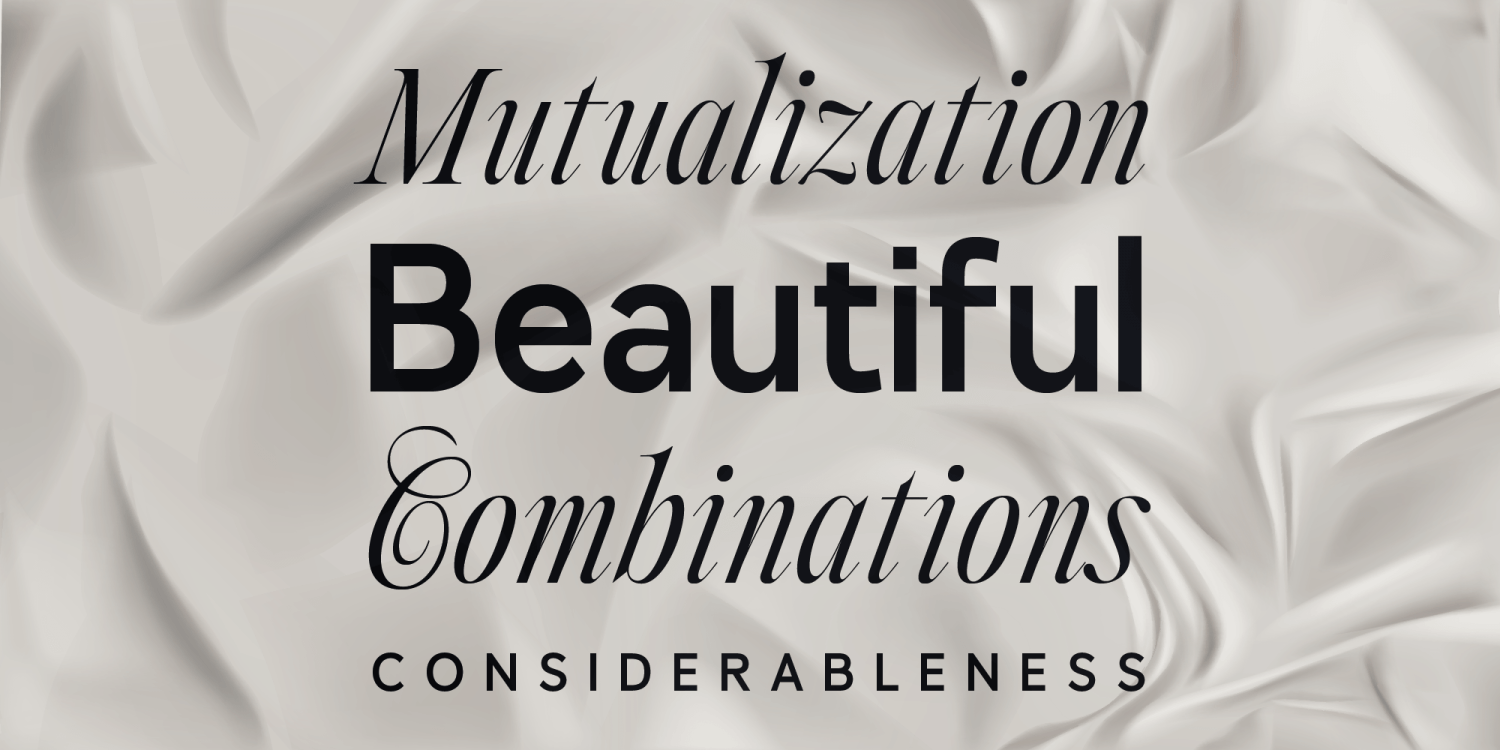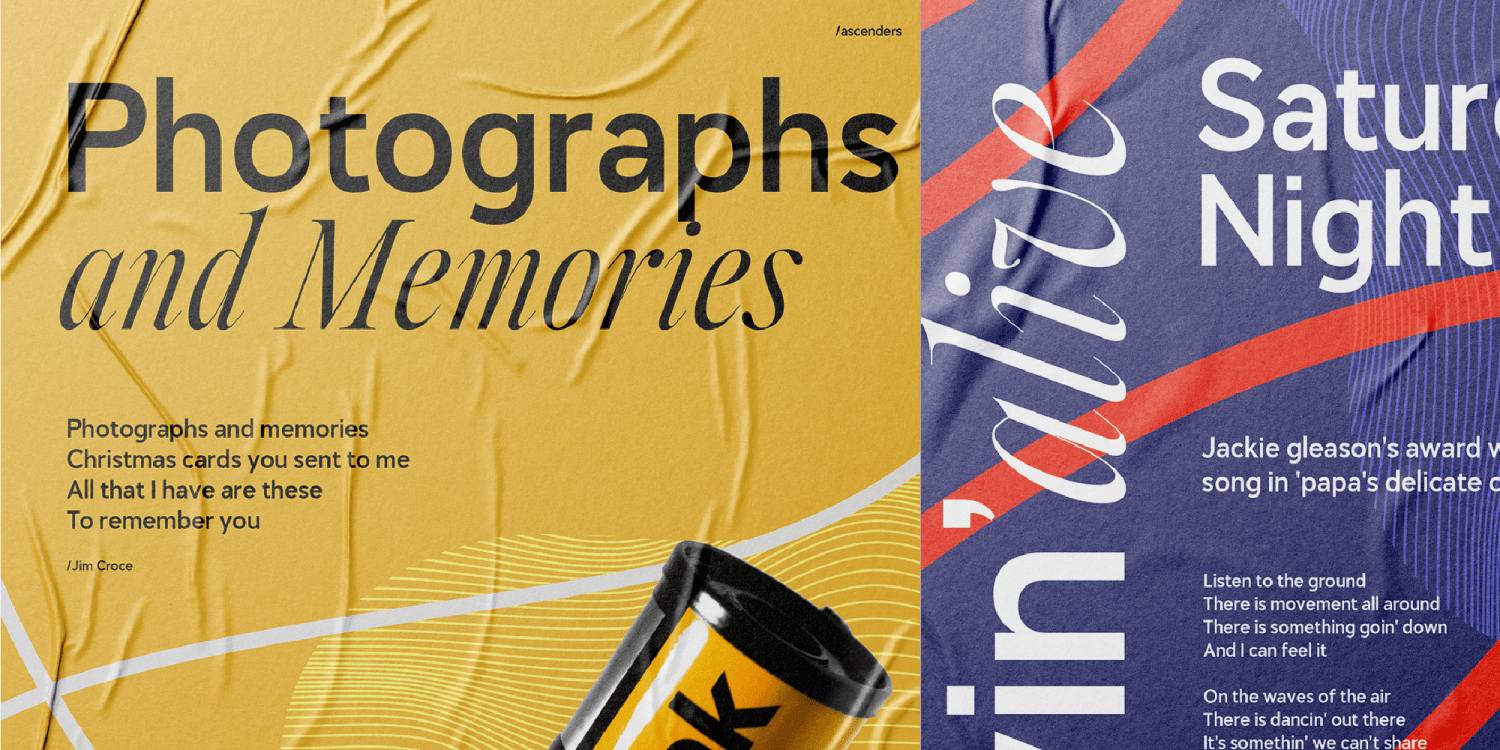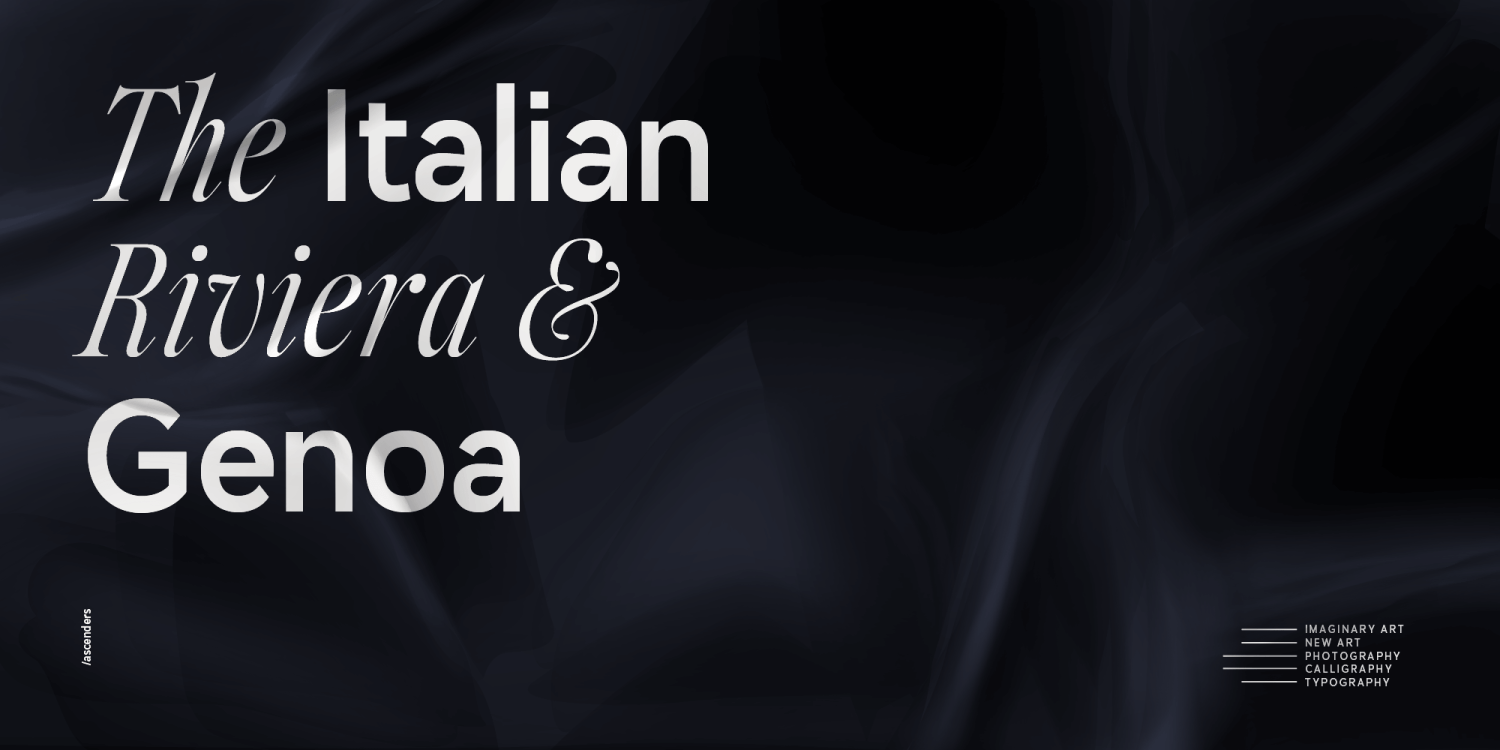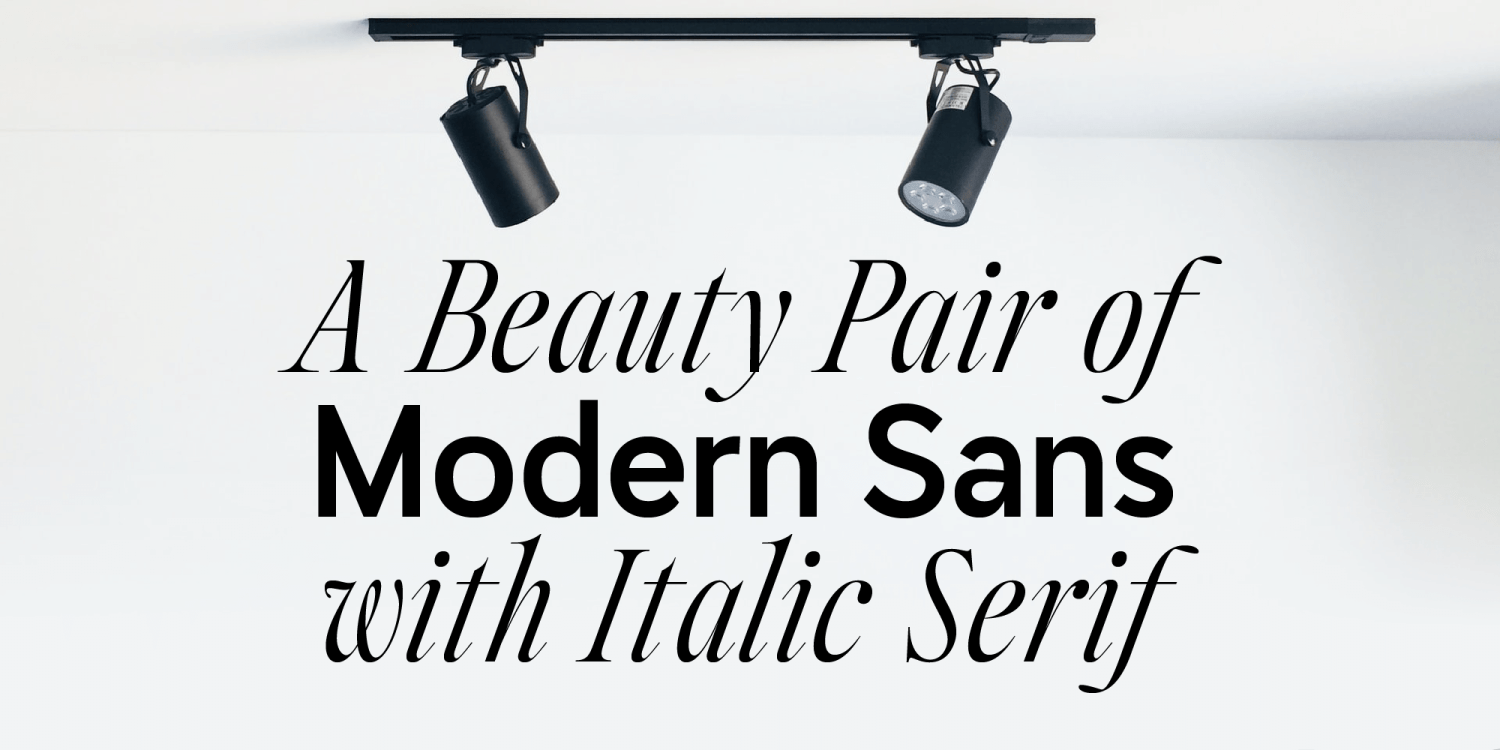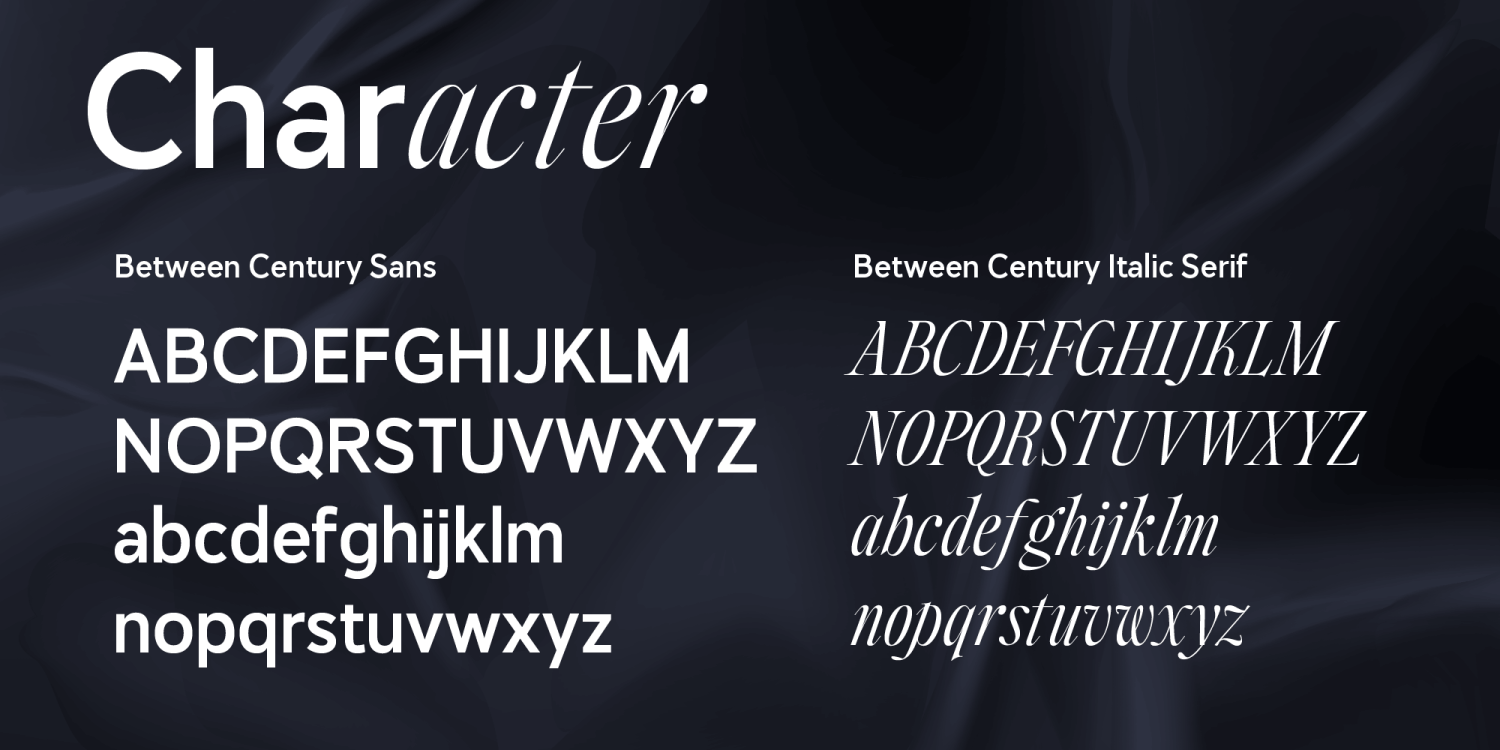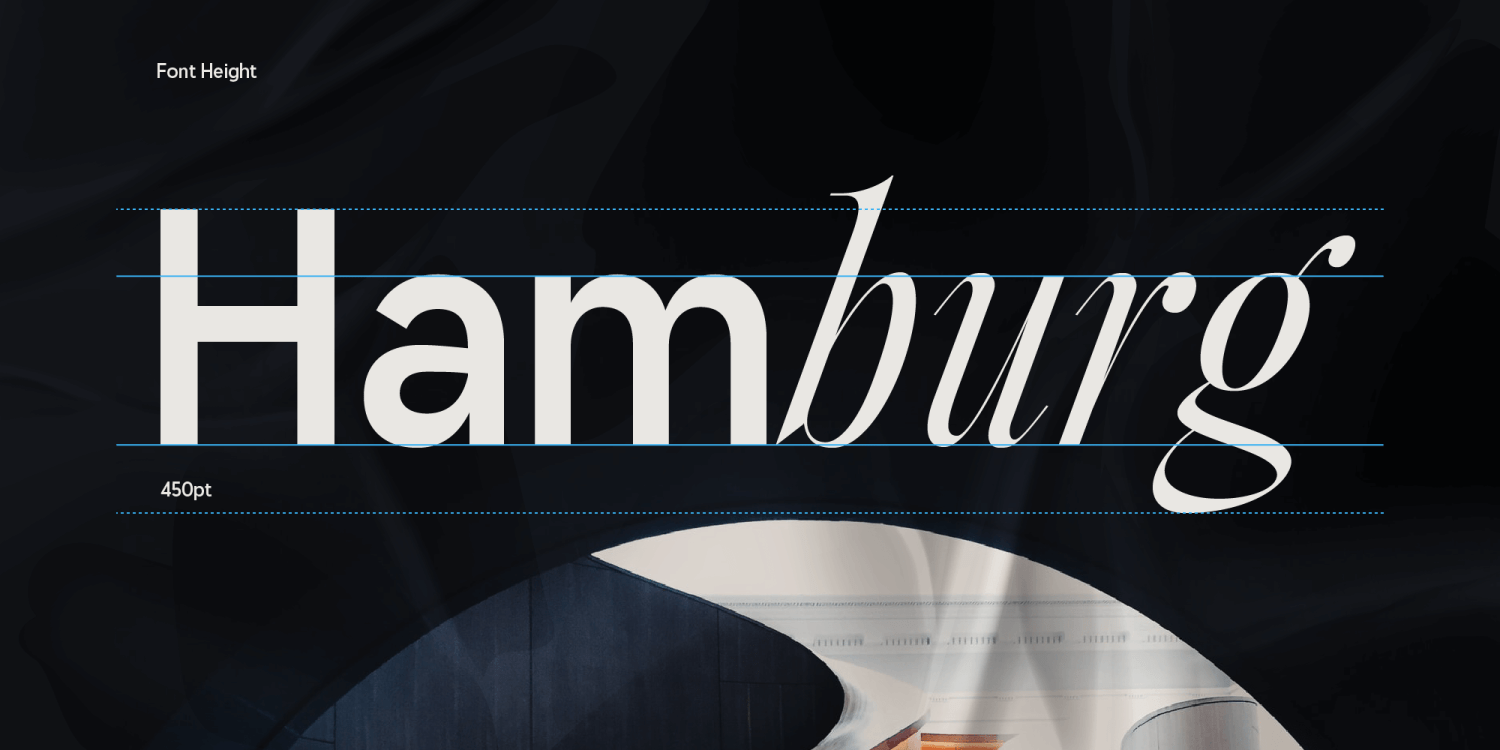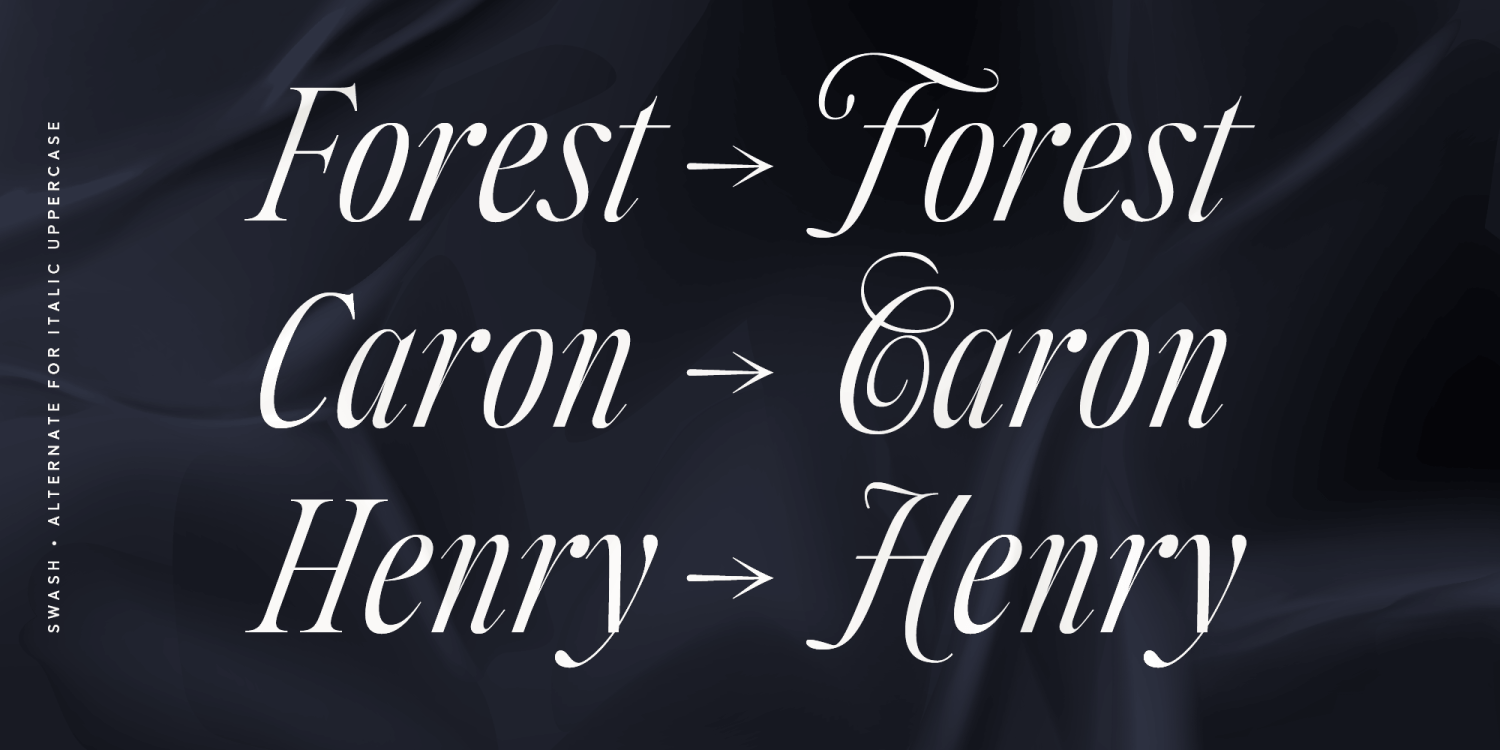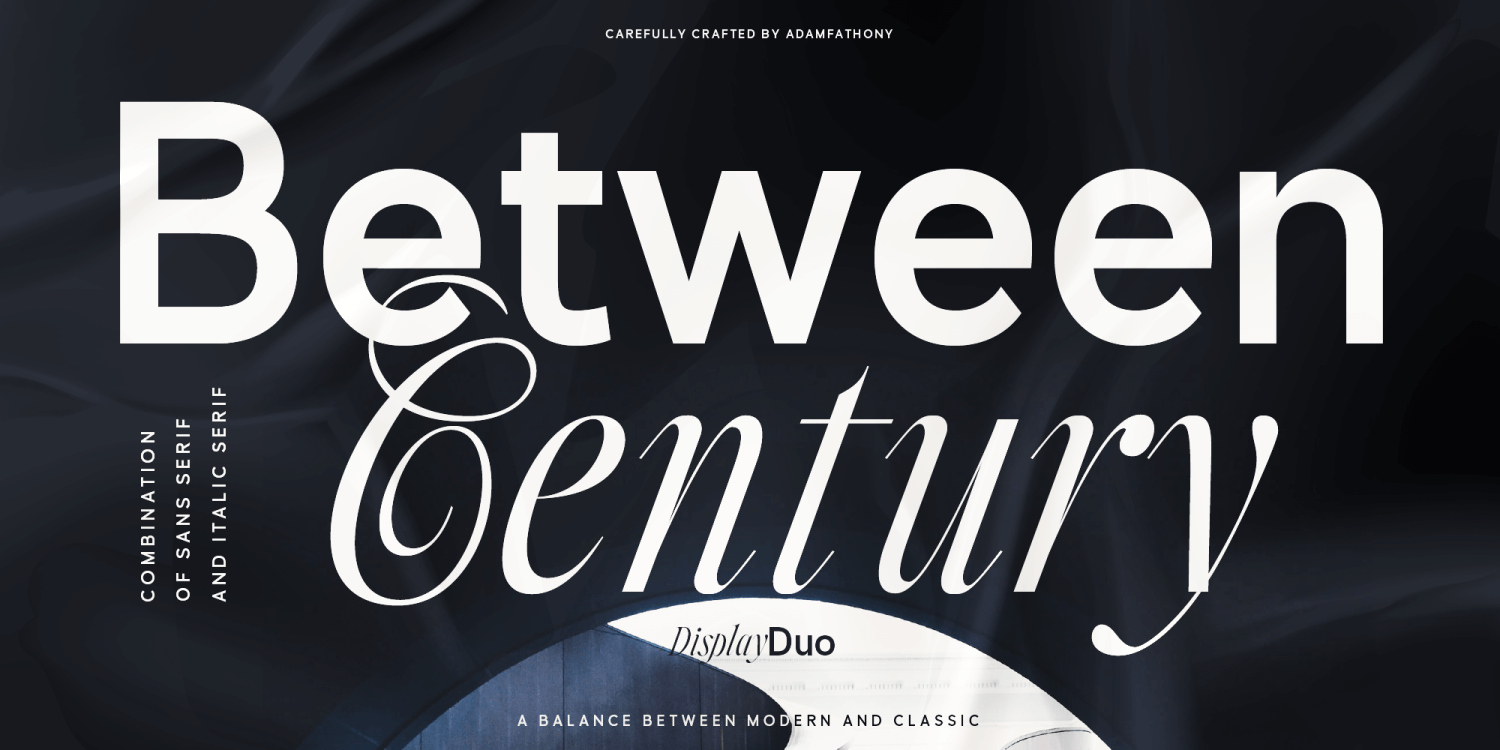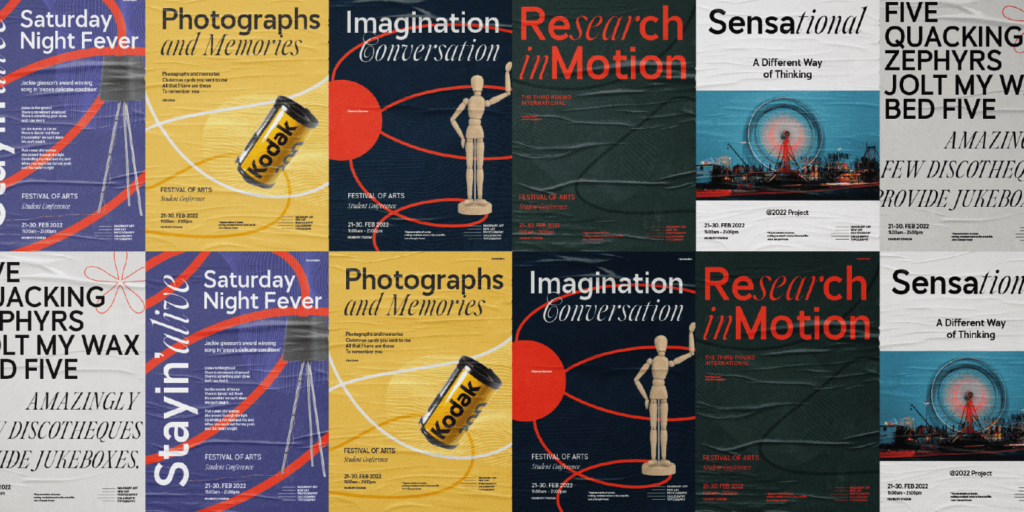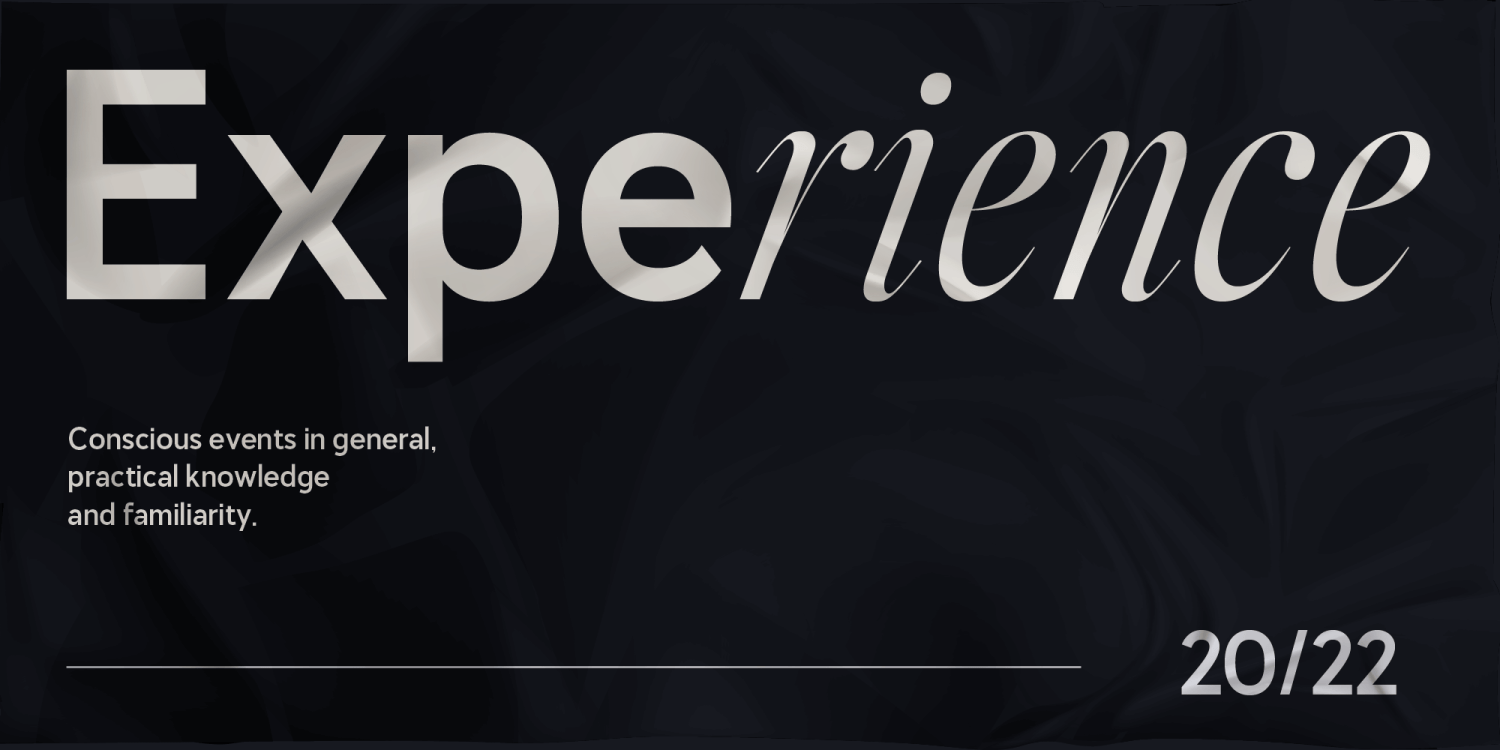
Between Century
About Between Century
Between Century is a combination between modern and classic looks. Basically this is a Modern Sans with slightly geometric, combined with italic serif that can match perfectly to any design project. You can explore how to mix and match between letters,…